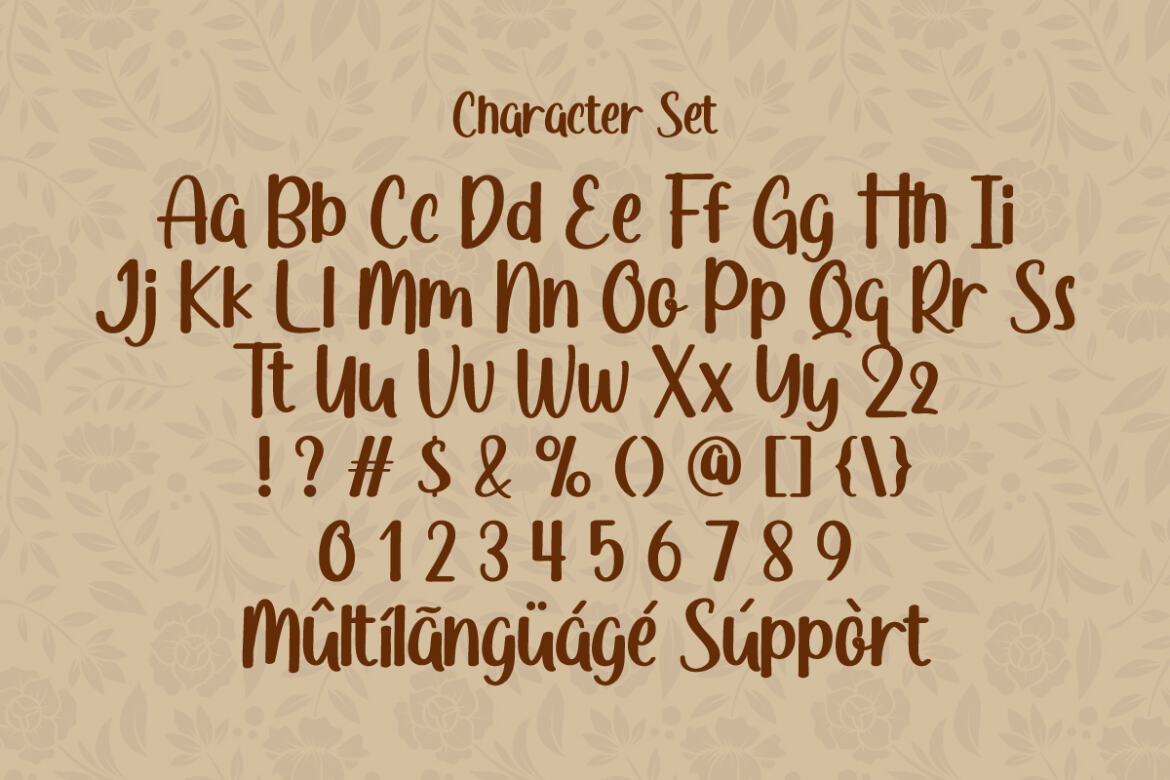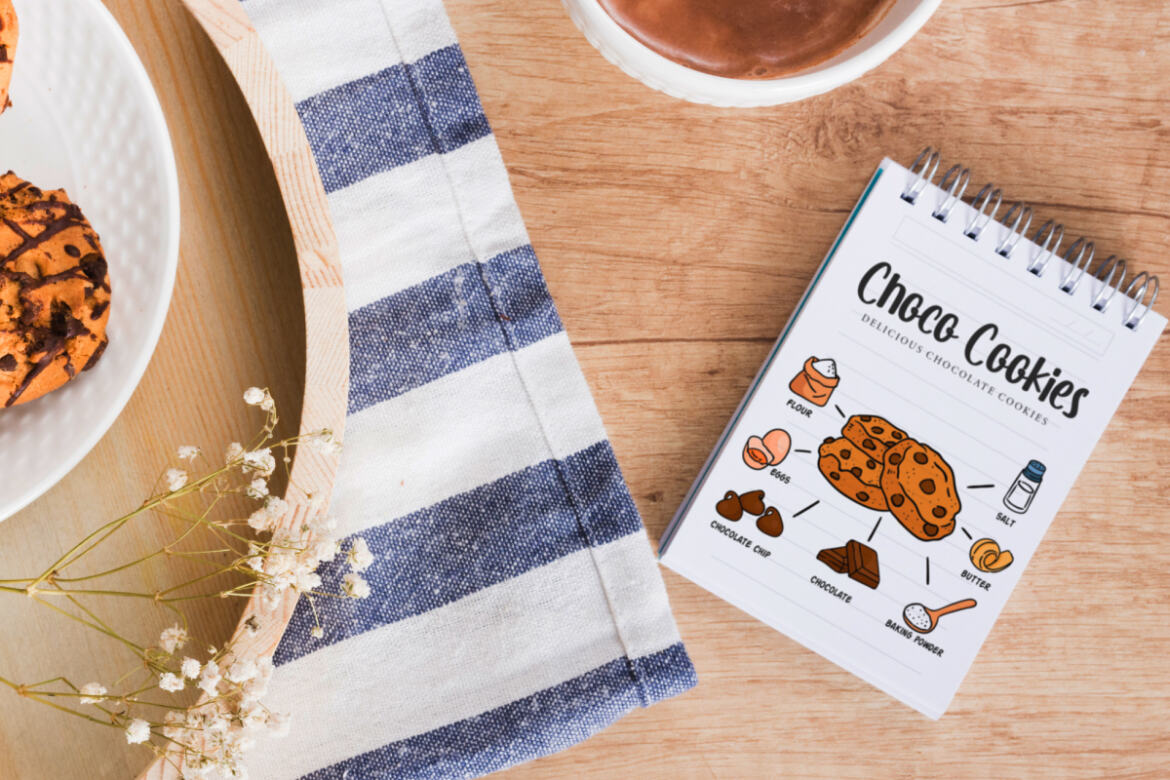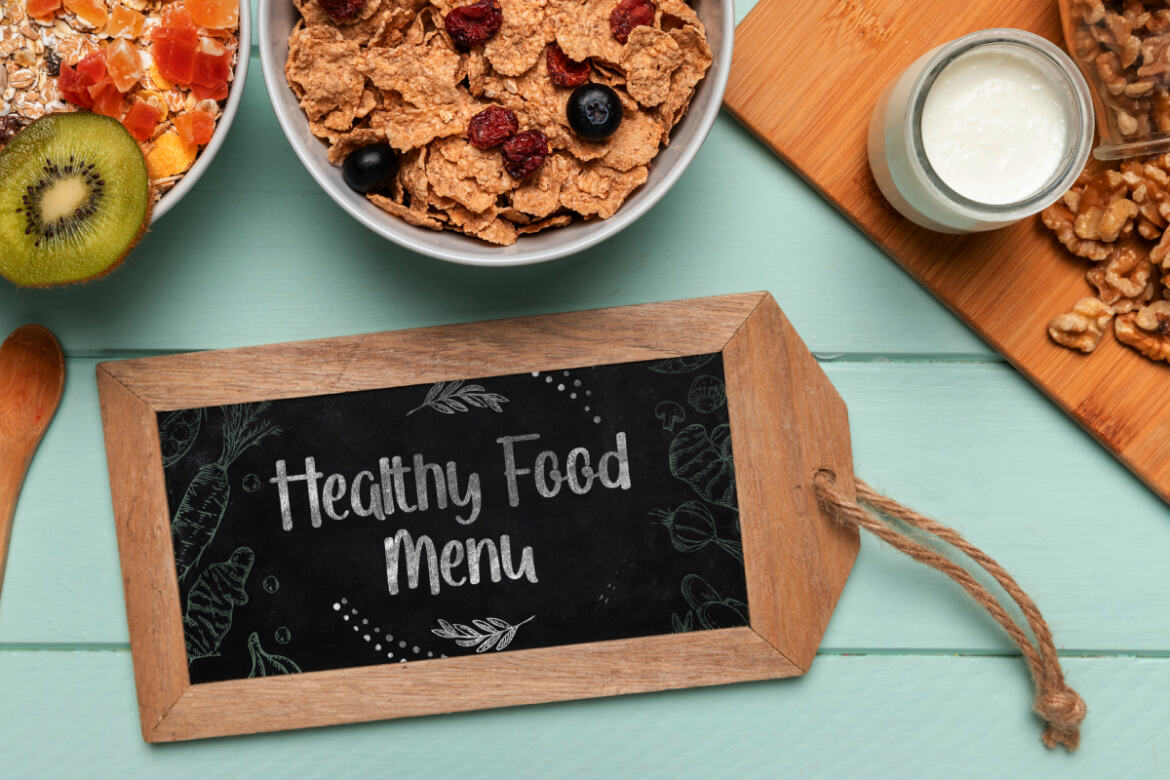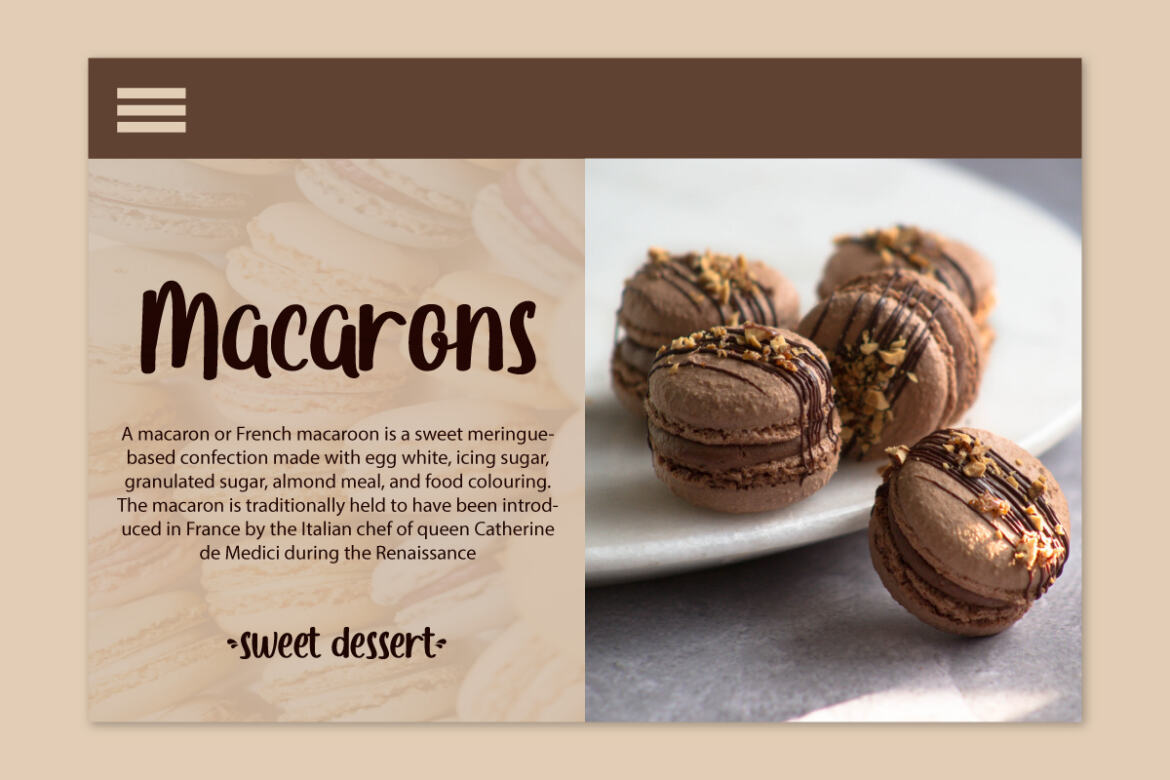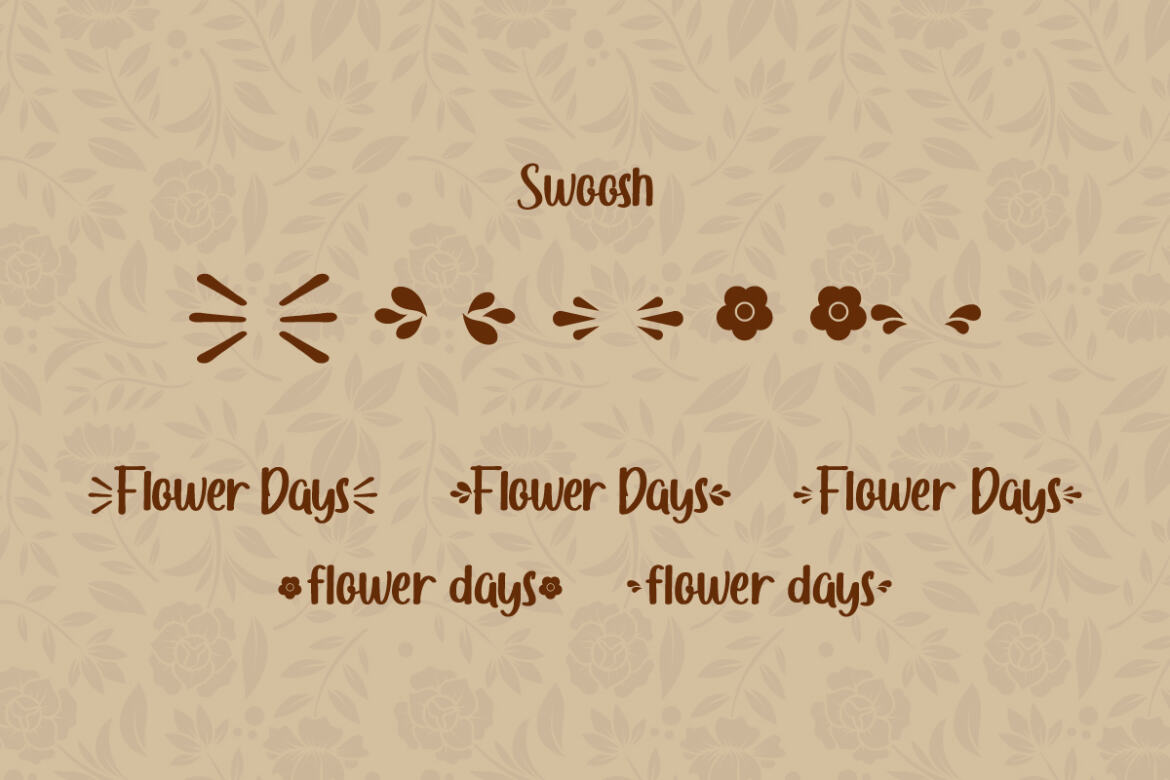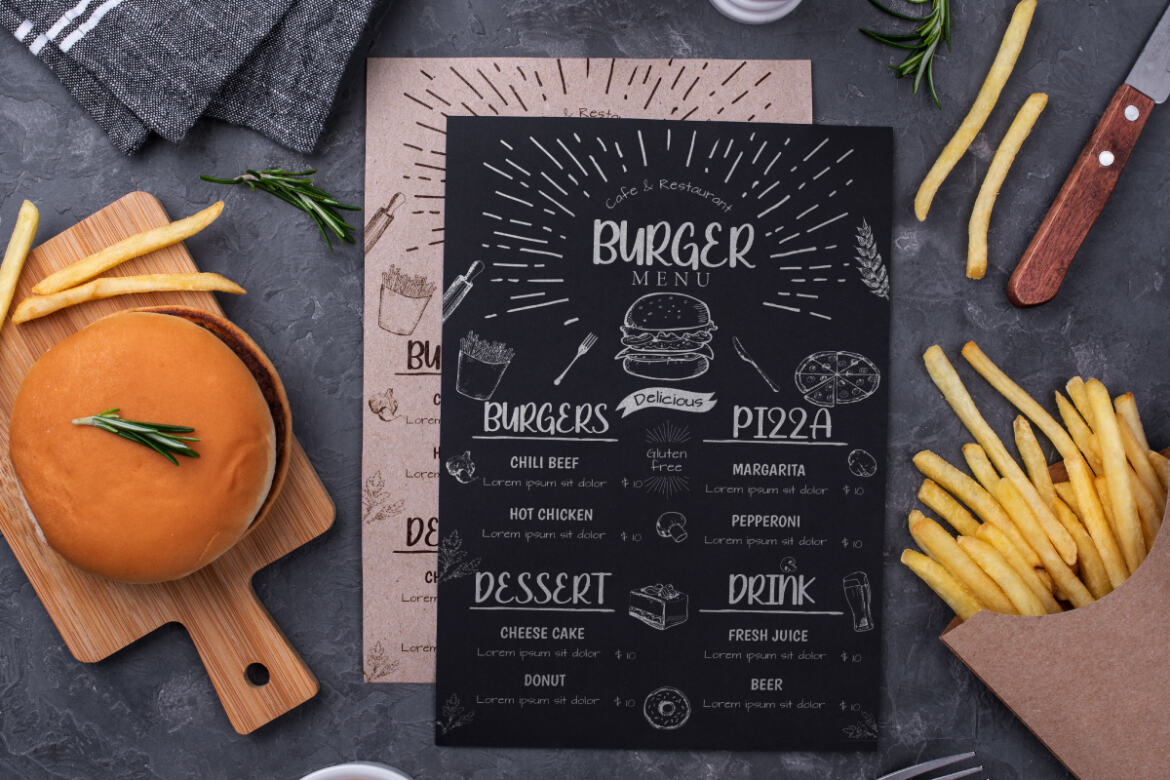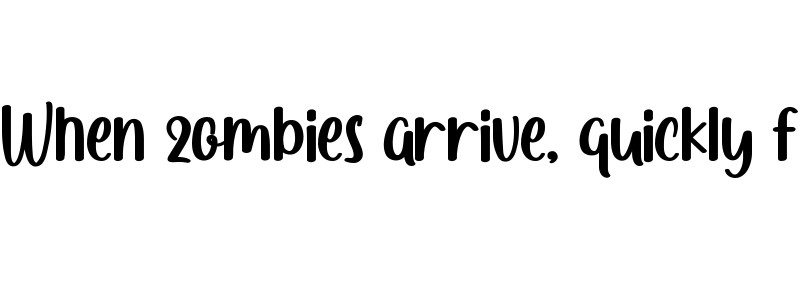
Flower Days FREE Font
Flower Days Font is a original brush script font. The style of this font are stylish, classic, cute and bold brush font. Here’s what you’ll get on the package :
Flower Days Font tested Work on PC & Mac. The Flower Days Font is inspired by flowers and the combination of handwriting script-style brushes used. We are made with a touch of personality every single curve. I hope this can make inspire you from your work. will be awesome for wedding, logos, handwritten quotes, product packaging, header, poster, merchandise, social media & greeting cards.